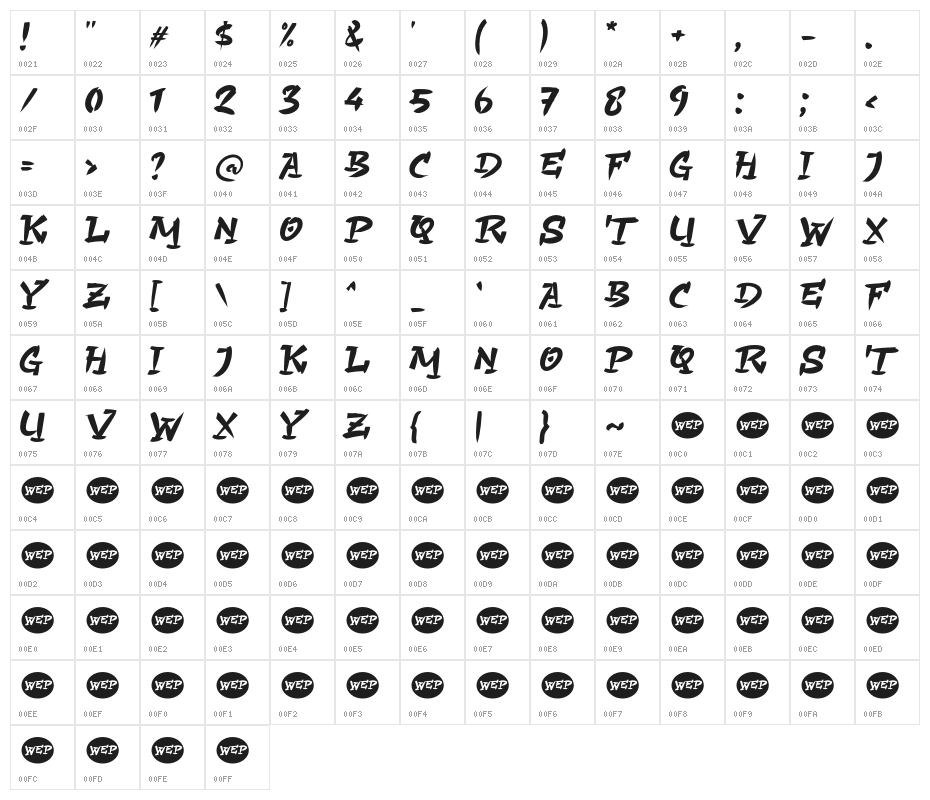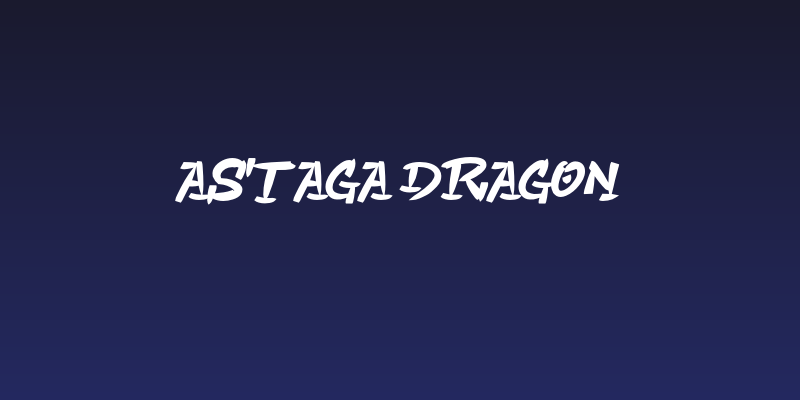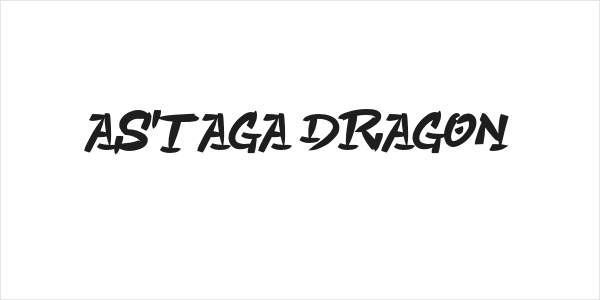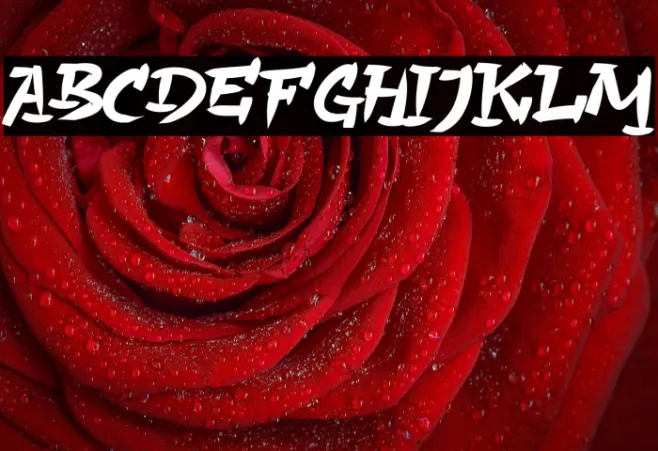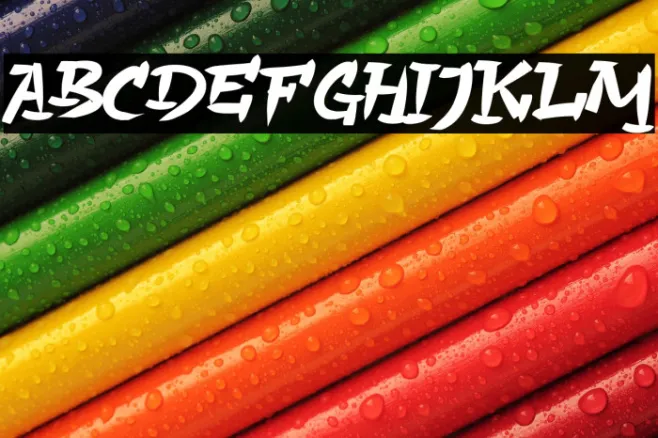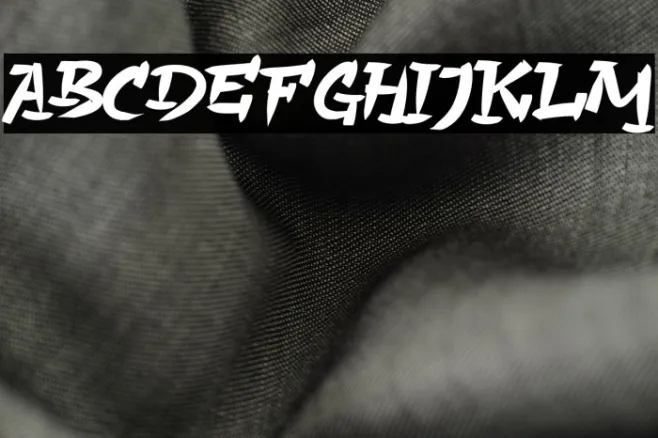
Astaga Dragon Font
Astaga Dragon Description
This font features a bold and dynamic style with sharp, angular strokes that convey a sense of energy and movement. The uppercase letters are particularly striking, with exaggerated serifs and a slightly slanted orientation that adds a sense of urgency and flair. The lowercase letters maintain this energetic style, with consistent stroke widths and a cohesive design that complements the uppercase set. The numerals are equally bold, ensuring readability while maintaining the font's overall aesthetic. Special characters are designed with the same attention to detail, making them an integral part of the font's visual language.